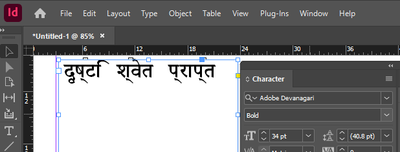
Hindi Devanagari font ligature issue. Broken syllables not connecting problem Help!
The problem is: Premiere 2025 doesn't recognize Devanagari (Hindi) fonts correctly, it drops/ breaks/ unlinks / disconnects / etc... the leters that are compound letters such as a P and a Ch constonants combined together.
1. Open a new project
2. New sequence (any format from the sequence choices)
3. select the Text  "I" beam tool and click on the monitor window
4. Copy and paste these words into the text box:  दृष्‍टि श्‍वेत प्राप्‍त
5. optional: choose the "Adobe Devanagari" font from the properties window (this font I installed through the CC font system)
6. Compare the on monitor screen results with the original three Hindi words above in point 4, they don't match.
The problem is that Premiere 2025 font engine isn't supporting the correct ligature for the Hindi (devanagari) script, this problem has presisted throughout the versions of Adobe software and it is so frustrating!
Problem in Premiere 2025 screenshot: (see on the text window (left) and properties window (right) it displays correctly but in the monitor window (center) it is wrong and disconnected showing a drop mark like a comma at the bottom of the letter)
Same problem in InDesign 2025:
But Photoshop 2025 displays correctly (friends at Adobe - what is going on?) Can you please talk together and straigten this out once and for all?!?!
Above screen shot from Photoshop 2025 is the correct way the letters should show.
I have tried this on two different PC systems:
My work around is to do all the work in Photoshop then import the slides back to premiere which is very time consuming! I have hundreds of slides to do.  I wish premiere which I am paying for would fulfill the requirement instead of making crutches to work.
Thanks for the message. This is indeed a bug. Our engineers are looking into it. Can you tell me which version of Premiere 2025 you're using?
Adobe Illustrator has the same problem
I see the same thing when pasting from the text you provided in the post. Win 11, working at the moment in PR Beta 25.6.0.55. But I also see it when pasting into Notepad++.
Did you type these on a keyboard, or copy/paste from somewhere?
I'm thinking some kind of combining unicode characters, but I forget how to check that.
Both directly inputing the text into Premiere or copy paste gives the same results.
to directly input to premiere Hindi script you must install the Hindi keyboard on your computer.
if you don't want to install the Hindi keyboard you an input the letters for example "kr" with google input tools set to Hindi and then copy paste over to Premiere for the same results.
I can verify that the issue is the presence of zero width joiners in the pasted text, though our repros are more spectacularly wrong in Pr - we see no text at all when the supplied text is pasted into the PGM. We are looking into it.
Fascinating. I remember the Mac only bug where captions would disappear if there was a ligature...
I am using the latest version 25.4.1 build 3